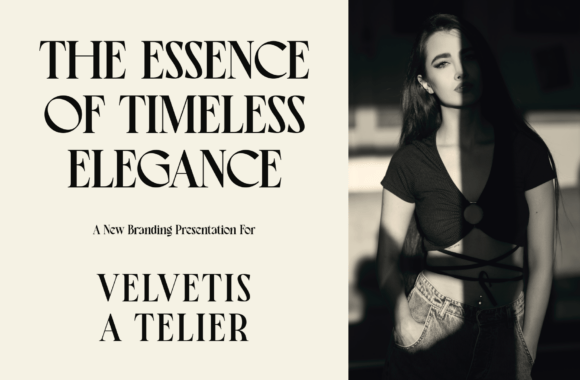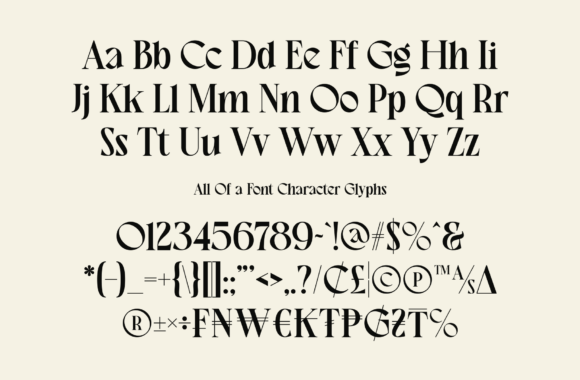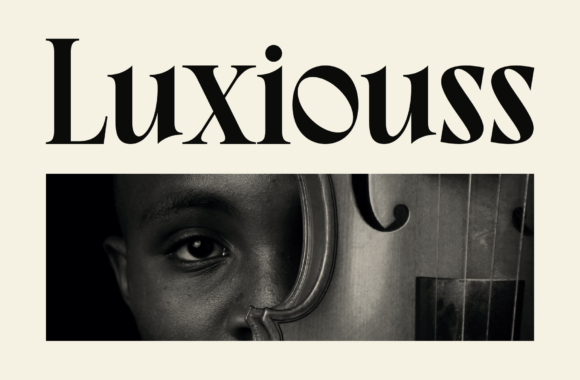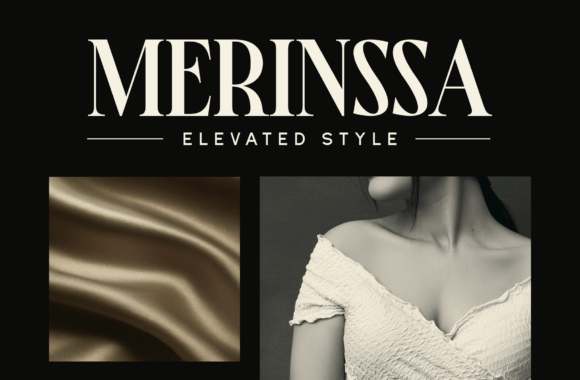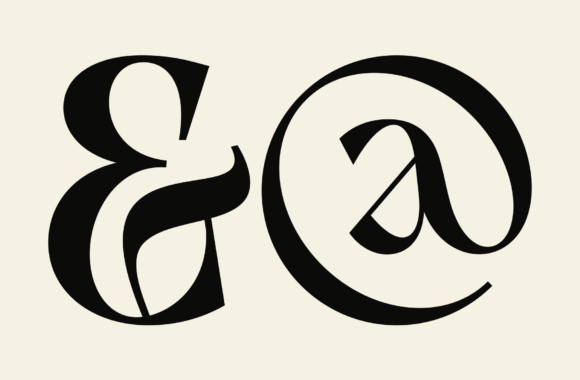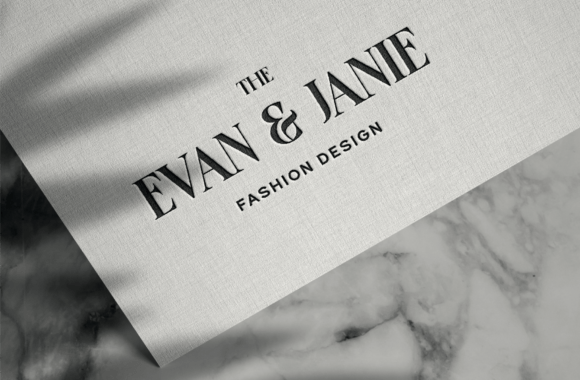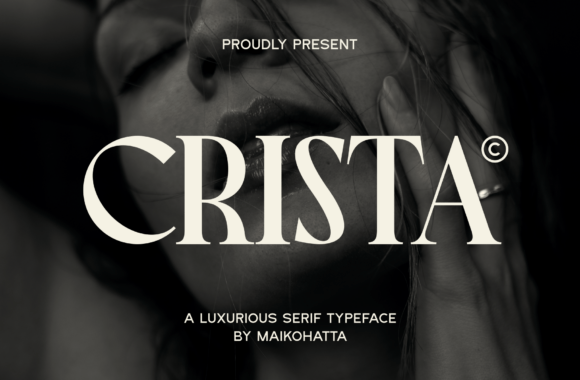
Introducing Crista: The Elegant Serif Typeface for Sophisticated Designs
In the world of typography, a new star has emerged: Crista, an elegant serif typeface that embodies timeless sophistication and refinement. This beautifully crafted font is designed to elevate your designs with its classic formality and modern sensibility, making it perfect for a wide range of applications, from editorial design to luxury branding, invitations, and high-end packaging.
The Characteristics of Crista
Crista’s design is characterized by a high contrast between thick and thin strokes, refined serifs, and gentle curves. This harmonious balance of elements creates a sense of elegance and refinement, making it ideal for designs that require a touch of sophistication. The font’s classic formality is perfectly balanced with a modern sensibility, ensuring that your designs look both timeless and contemporary.
Perfect for Editorial Design and Luxury Branding
Crista is specifically designed for editorial design, luxury branding, and high-end packaging. Its elegant letterforms and precise details make it perfect for both display and refined body text. Whether you’re designing a luxury brand’s logo, a high-end fashion magazine, or an exclusive invitation, Crista is the perfect choice to convey sophistication and refinement.
Key Features of Crista
- High contrast between thick and thin strokes: Creates a sense of elegance and refinement, adding depth and visual interest to your designs.
- Refined serifs: Adds a touch of sophistication and classic formality to your designs.
- Gentle curves: Creates a sense of harmony and balance, making your designs look both elegant and refined.
- Classic formality with a modern sensibility: Ensures that your designs look both timeless and contemporary.
Why Choose Crista?
With Crista, you can elevate your designs with a sense of elegance and refinement that’s hard to find in other typefaces. Here are just a few reasons why Crista is the perfect choice for designers and crafters:
- Versatility: Crista is perfect for a wide range of applications, from editorial design to luxury branding, invitations, and high-end packaging.
- Sophistication: Crista’s elegant letterforms and precise details make it perfect for designs that require a touch of sophistication.
- Timelessness: Crista’s classic formality ensures that your designs look timeless, while its modern sensibility keeps them looking contemporary.
How to Use Crista in Your Designs
Crista is easy to use and can be incorporated into your designs in a variety of ways:
- Display text: Use Crista as a display font to create stunning headlines and titles that grab attention.
- Body text: Use Crista as a body font to create refined and elegant text that’s perfect for editorials, luxury brands, and high-end packaging.
- Branding: Use Crista as a brand font to create a sophisticated and elegant brand identity.
In conclusion, Crista is an elegant serif typeface that’s perfect for designers and crafters who want to add a touch of sophistication and refinement to their designs. With its high contrast between thick and thin strokes, refined serifs, and gentle curves, Crista is ideal for editorial design, luxury branding, invitations, and high-end packaging. Its versatility, sophistication, and timelessness make it a valuable addition to any designer’s font collection.